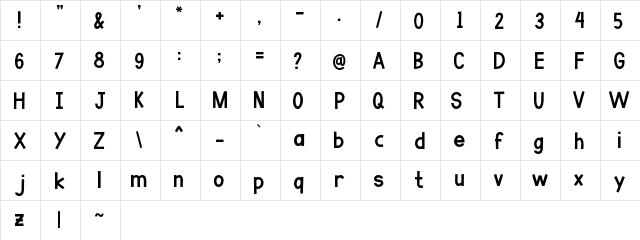
Go Banana Regular Font Preview
Go Banana Regular
Go Banana Regular Font Details
| Foundry | Polah |
| Designer | Polah |
Design Context for Go Banana Typeface
Go Banana takes a measured approach to typography — its balanced proportions and neutral character make it a reliable workhorse for both digital and print work.